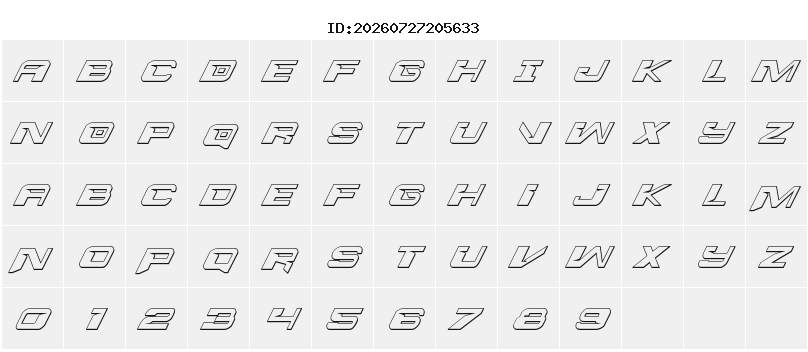
About Interdiction 3D Italic.ttf
Interdiction 3D Italic.ttf is a modern, elegant sans-serif font designed for ultimate readability and visual harmony. Perfect for branding, headlines, web design, and print materials.